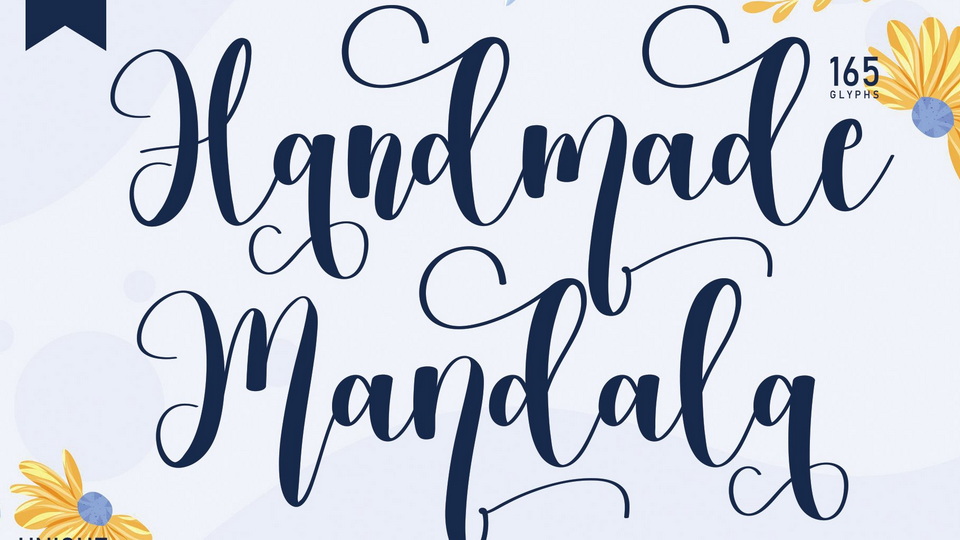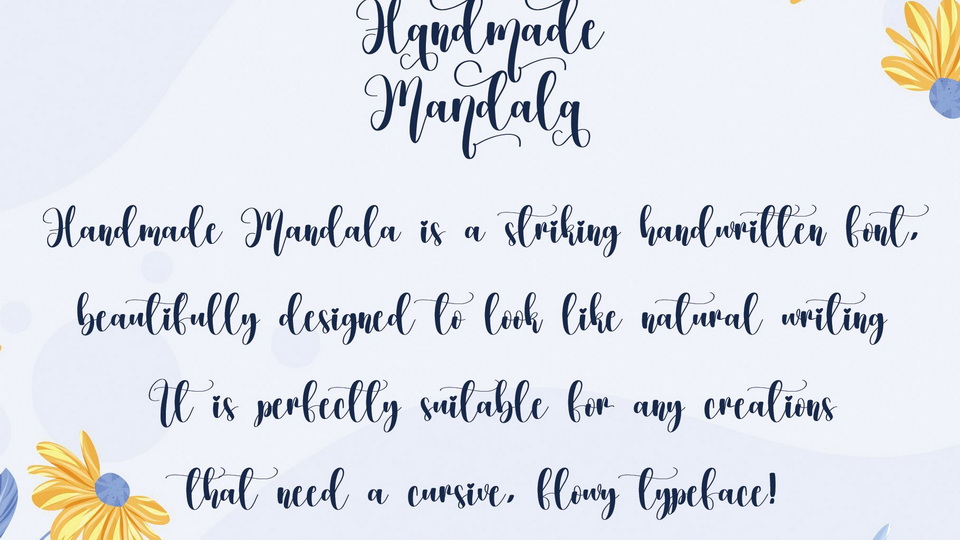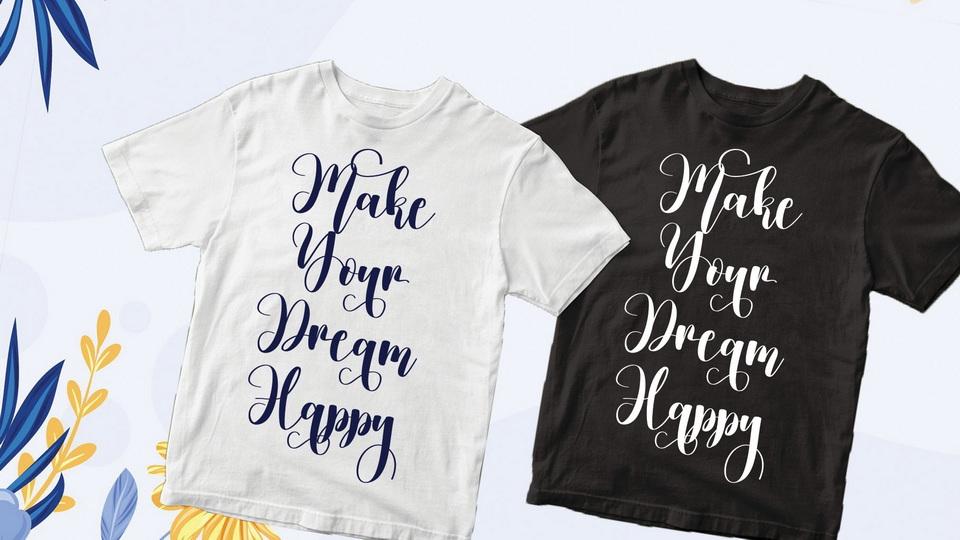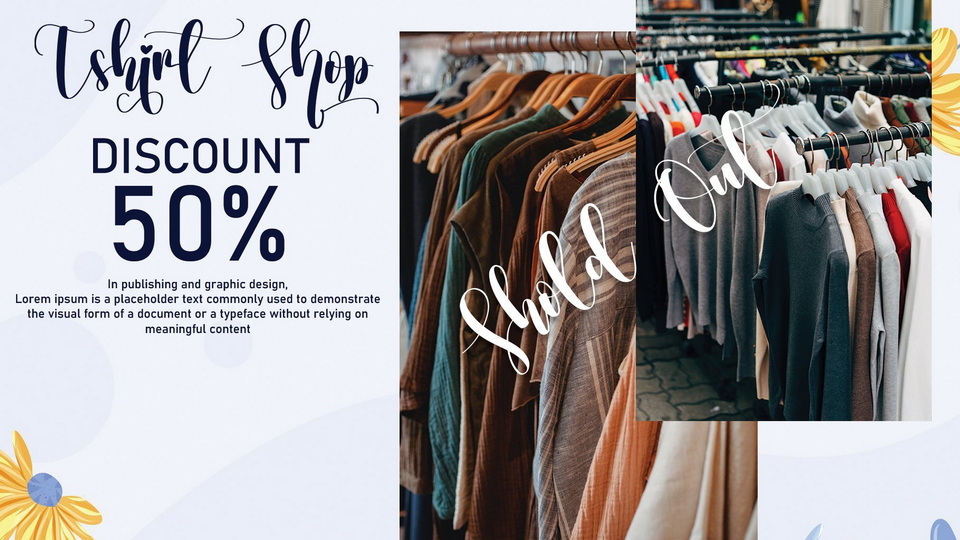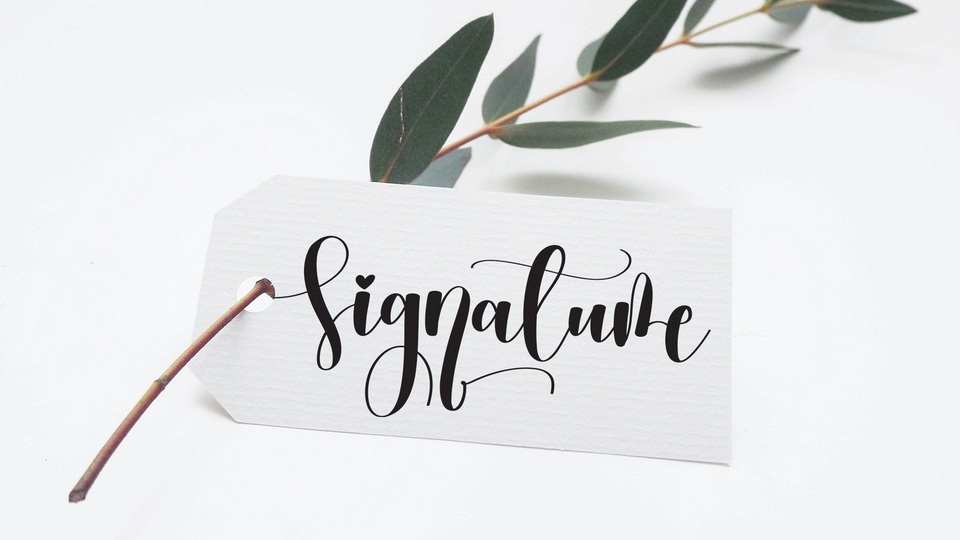
Handmade Mandala is a lovely handwritten font with a bouncy flow and beautiful strokes. This font is perfect for your creative ideas, both formal and informal.
Handmade Mandala has a modern style that is very suitable to be applied anywhere that requires creative ideas such as invitation cards, letterheads, website logos, social media, banners, advertisements, brochures, packaging products, leather products, and any product that requires natural writing.